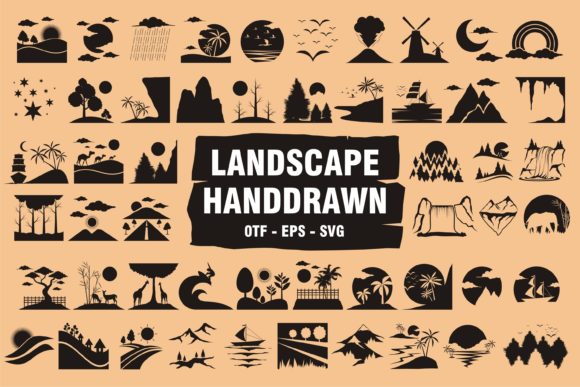
Immerse yourself in the captivating world of Landscape Handdrawn fonts, a collection that embodies the beauty and serenity of nature. These fonts are not just a collection of characters; they are an artistic expression of nature's allure, crafted to inspire and uplift your designs.
With Landscape Handdrawn, you can effortlessly evoke the tranquility of a serene forest, the vibrancy of a blooming meadow, or the grandeur of a majestic mountain range. Each font in this collection is a unique masterpiece, carefully designed to capture the essence of the natural world.
Escape the mundane and ordinary, and embrace the extraordinary with Landscape Handdrawn. Let your designs flourish with the elegance of nature's curves, the boldness of its textures, and the depth of its colors.
Whether you're a graphic designer seeking to create captivating visuals, a web designer seeking to evoke emotions, or a content creator seeking to engage your audience, Landscape Handdrawn is your font of choice. Its versatility extends beyond the realm of digital design, seamlessly integrating into print, branding, and even fashion.
The natural world is a symphony of intricate details, and Landscape Handdrawn captures this essence with remarkable precision. Its collection of fonts offers a diverse range of styles, from the delicate intricacy of a blooming flower to the bold majesty of a towering tree.
With Landscape Handdrawn, you'll never again struggle to find the perfect font to convey your message. Its extensive collection empowers you to express your ideas with the eloquence and charm of nature itself, leaving an indelible mark on your audience.